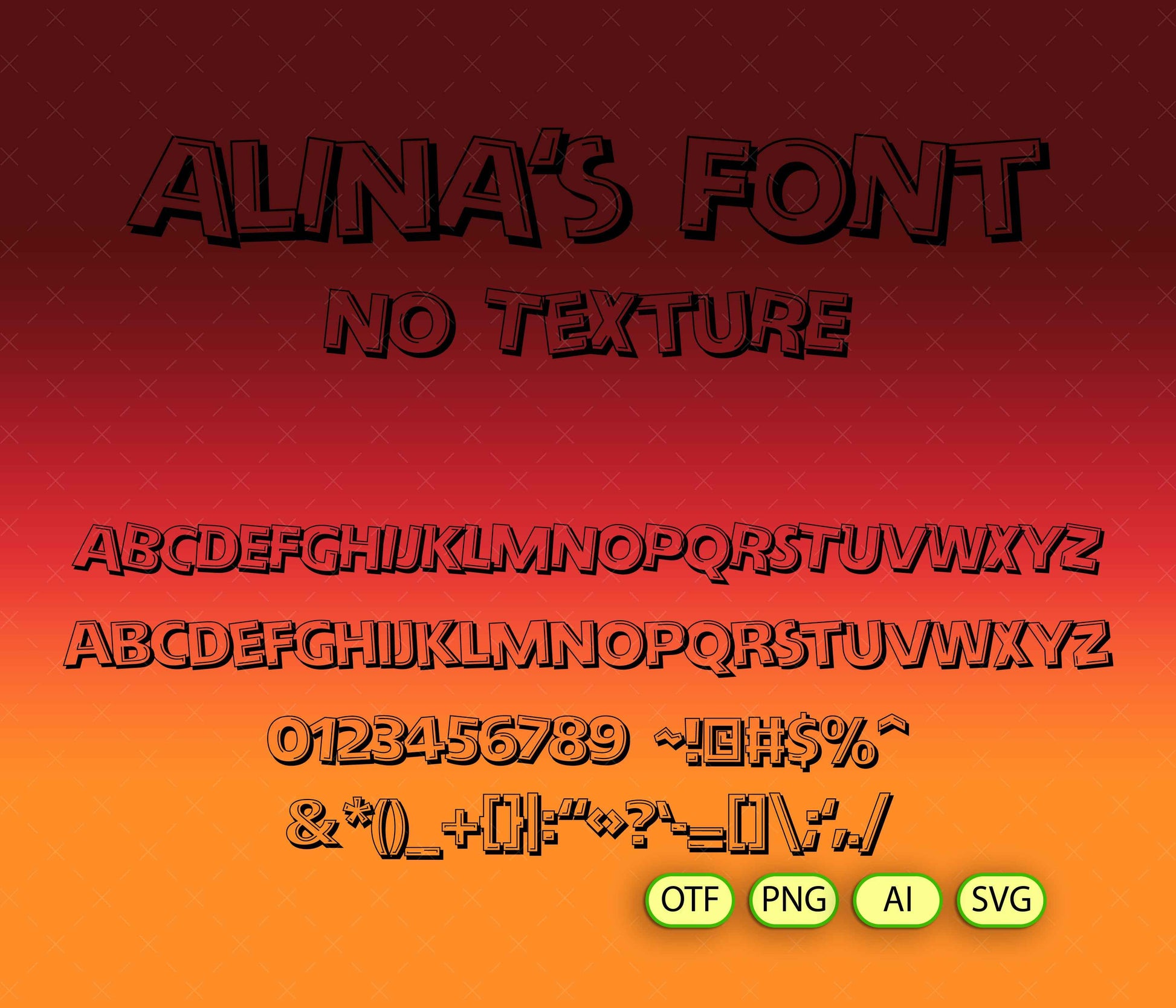
Animated Comedy Icons Font
Step into the whimsical world of classic cartoon comedy, where zany characters and slapstick humor reign supreme. Our font captures the playful spirit of those beloved Saturday morning cartoons, featuring bouncy, energetic letterforms that bring to mind those unforgettable animated shorts. Perfect for projects that aim to evoke nostalgia and timeless appeal of golden age animation.
What Font Captures the Spirit of Classic Cartoons?
Drawing inspiration from the golden era of animation, this typeface embodies the quirky, fun-loving nature of those memorable cartoon characters. With its bouncy, expressive design, each character reflects the dynamic energy and humor that made these cartoons a cultural phenomenon.
What You Can Do With This Animated Comedy Font